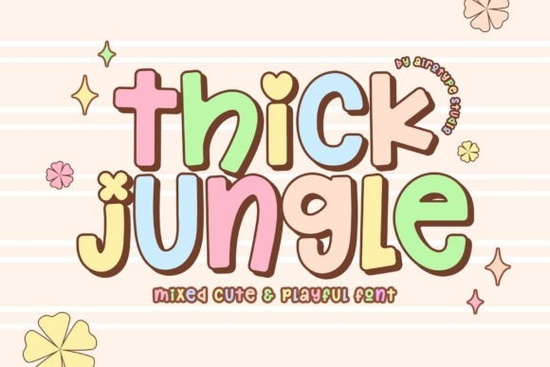
If you're searching for a font that feels warm, cheerful, and a little whimsical, Thick Jungle Font is worth a closer look. This fun and cute typeface brings a playful energy to any design, making it a solid choice for projects that need a friendly, approachable vibe. Its thick strokes and rounded shapes give it a soft, handmade feel that works well in both digital and physical formats.
One of the things that makes Thick Jungle Font so versatile is the ability to mix uppercase and lowercase letters. By alternating between the two cases, you can create an even cuter, more dynamic look. This flexibility is especially handy for headlines, short phrases, or any text where you want to emphasize a lighthearted tone. The font sits comfortably in the display category, meaning it's built to grab attention. Its chunky letterforms feel modern yet nostalgic, reminiscent of classic comic book lettering or playful poster fonts.
What types of designs suit this typeface best?
Because of its playful character, Thick Jungle Font fits perfectly into a wide range of design contexts. Think school projects – from classroom posters to children's worksheets. Birthday invitations become instantly more cheerful with this font's cute lettering. Summer-themed flyers, holiday cards, and event banners all benefit from its whimsical touch. It's also a strong candidate for t-shirt graphics, craft labels, sticker sets, and sublimation items like mugs or tote bags. If your audience expects something fun and approachable, this font helps deliver that feeling without overwhelming the design.
Print-on-demand sellers will appreciate how easily this font adapts to different products. For example, a simple quote on a toddler tee or a personalized gift tag can stand out with Thick Jungle Font. Its bold strokes ensure readability even on dark or textured backgrounds, which is a key consideration for sublimation work. The font's natural cuteness also makes it a go-to for holiday decorations, party supplies, and any event where a cheerful tone is needed.
Which other fonts work well with Thick Jungle Font?
While Thick Jungle Font can carry a design on its own, pairing it with a complementary typeface can add variety and depth. For a bold, attention-grabbing headline, consider using the King Font alongside your playful script. The contrast between sturdy display lettering and cute rounded characters creates a balanced look. If you prefer something with a hand-drawn, slightly messy feel, Simple Grinches Font offers a different kind of charm. Its irregular lines pair nicely with the neat, thick strokes of Thick Jungle.
Another option is Wavy Stacked Font, which gives a flowing, layered appearance. This works well for stacked titles or multi-line layouts where you want visual interest. If you need a duo style – one font for headings and another for body text – check out Hajime Font Duo. It provides two matching styles that can save time while keeping your design cohesive. Combining any of these with Thick Jungle Font gives you plenty of room to experiment without losing the fun vibe.
How do you get the best results with this font?
To make the most of Thick Jungle Font, keep a few practical tips in mind. First, experiment with mixed cases. The uppercase characters tend to be taller and more prominent, while lowercase letters feel softer. Combining them can produce a handwritten, scrapbook-style effect that many crafters love. Second, use the font at larger sizes to really show off its thick, friendly curves. It can lose some of its charm if scaled down too small, especially in detail-heavy projects.
For print-on-demand sellers, consider applying the font to products that already have a playful theme. Children's clothing, personalized gifts, and seasonal decor are all categories where this font can make a product stand out. In sublimation, the bold strokes ensure good readability on dark or textured backgrounds. When pairing with other display fonts, keep a clear hierarchy – use Thick Jungle for the main message and a simpler, neutral font for supporting text.
Quick checklist for using Thick Jungle Font in your next project:
- Mix uppercase and lowercase letters for a cuter appearance.
- Use at 24pt or larger for best readability.
- Pair with a simple, neutral font for body text.
- Test on dark backgrounds – the thick strokes handle sublimation well.
Start with a short phrase in Thick Jungle Font and see how its natural playfulness changes the mood of your design. It's a small change that can make your work feel more personal and engaging.